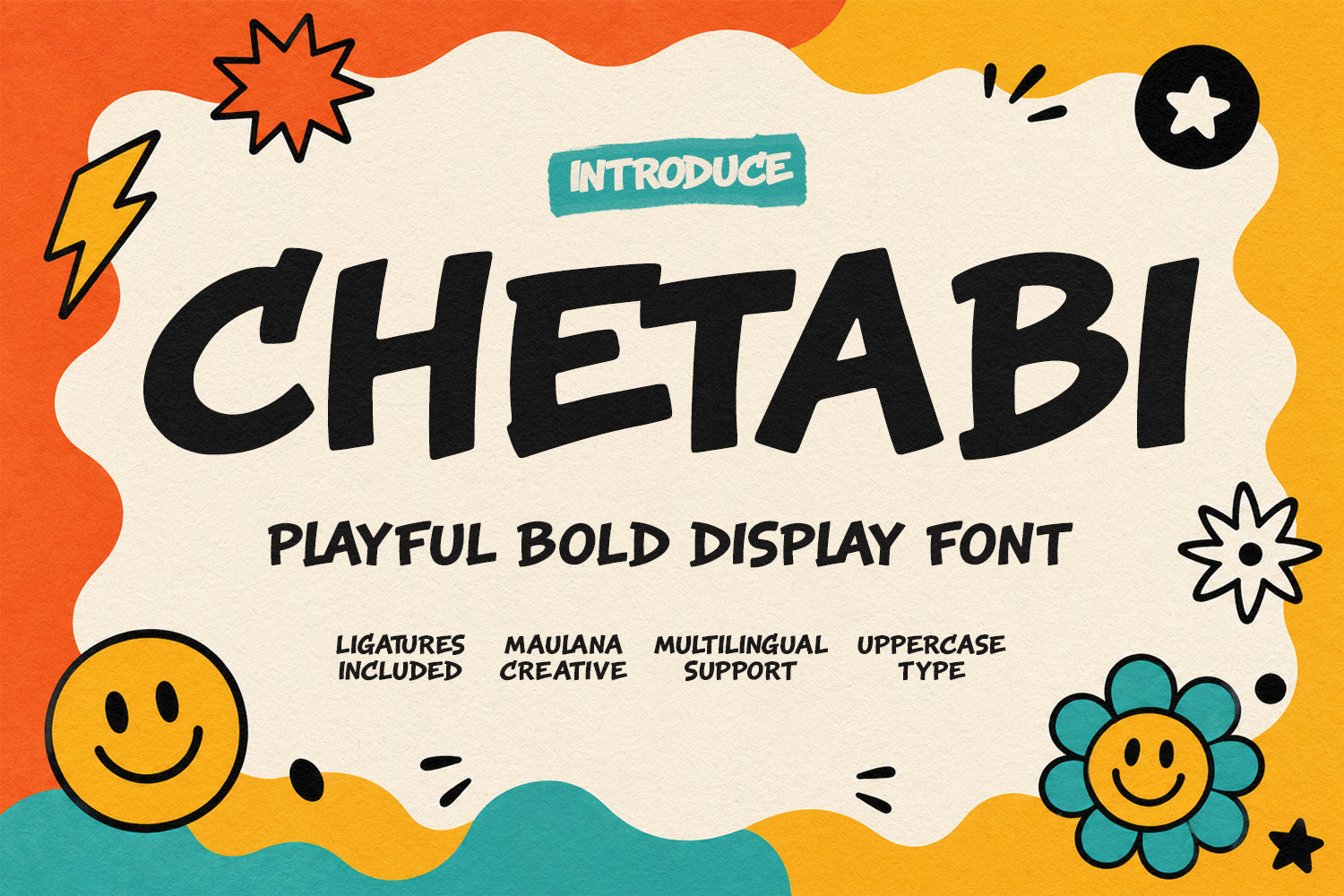
Chetabi Playful Bold Display Font
Chetabi is a bold display font crafted with a fun, expressive, and energetic feel. Featuring thick strokes, marker-style textures, and custom ligatures, this typeface brings a vibrant cartoon aesthetic to any creative work. The design includes full uppercase characters, numbers, symbols, and multilingual support, making it versatile for eye-catching branding, posters, packaging, and digital media.
Ideal for children's books, comic visuals, event banners, and social media graphics, Chetabi brings dynamic personality to headlines and logotypes. Its handwritten marker appearance gives text a friendly, handcrafted charm that instantly captures attention and adds a cheerful vibe to modern designs.